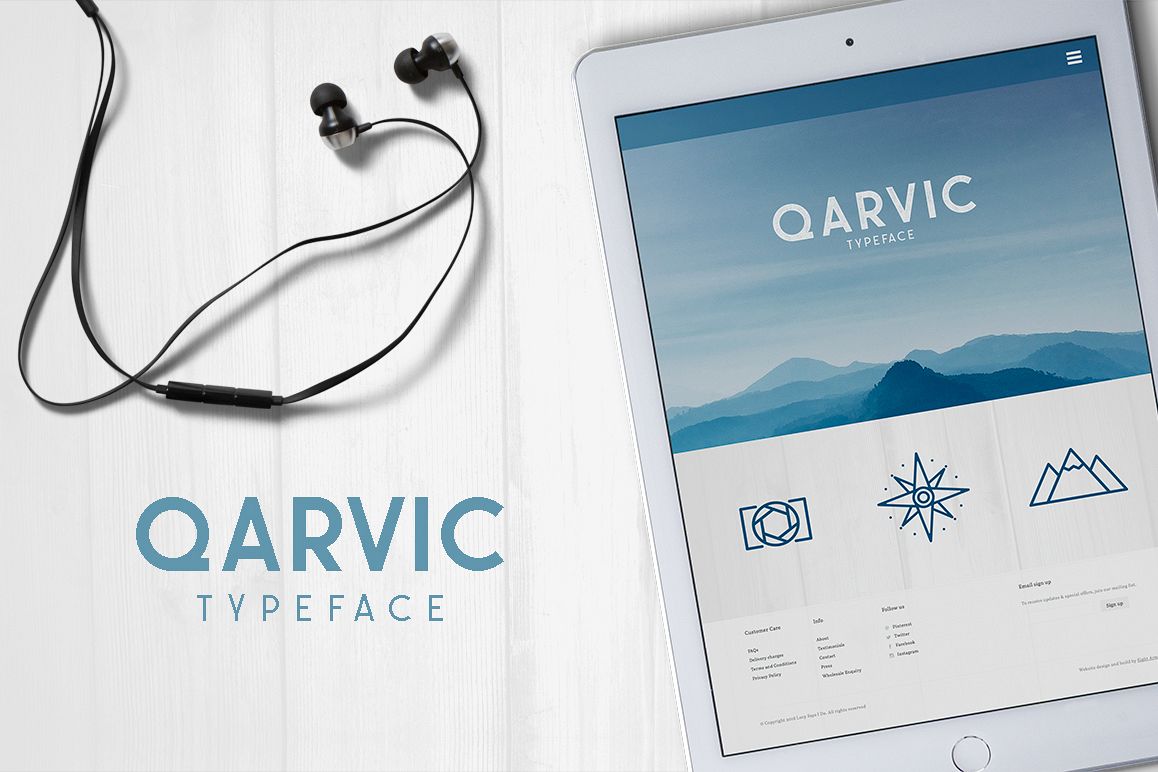
QARVIC Typeface
Introducing QARVIC TYPEFACE a simple and beautiful font made with persistence and passion. QARVIC typeface have a unique character when compared with the others sans serif font, it has two types of letters are plain type and type grunge and it also has an outline QARVIC icon characters.
QARVIC typeface is suitable for simple logo design, website header, wedding design, badges, menu fonts for website. to design fashion, and others who have a minimalist and simple concept.